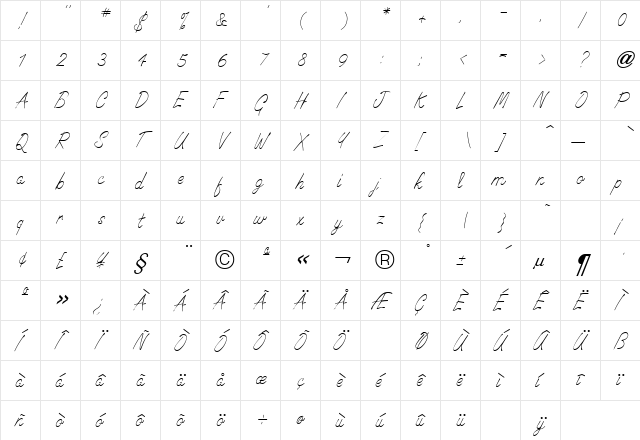
Signature Light Regular
Design Context for Signature Light Typeface
Signature Light takes a measured approach to typography — its balanced proportions and neutral character make it a reliable workhorse for both digital and print work. The delicate stroke weight brings airiness and refinement to layouts.